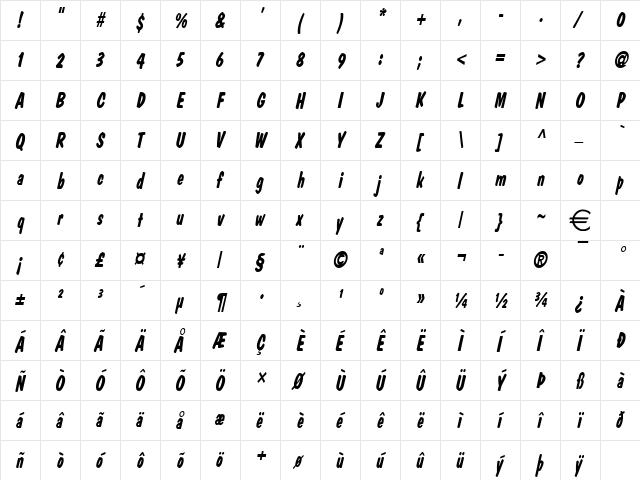
DapperThin Italic Font Preview
DapperThin Italic
DapperThin Italic Font Details
Design Context for DapperThin Typeface
DapperThin takes a measured approach to typography — its balanced proportions and neutral character make it a reliable workhorse for both digital and print work. The slanted form adds forward momentum and visual energy. Its slender proportions lend an understated elegance to any composition.